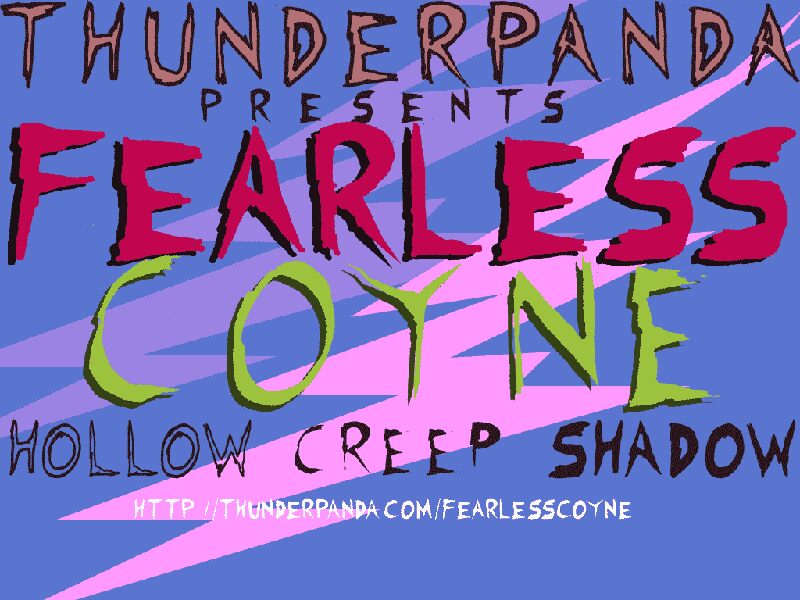
Fearless Coyne Hollow is a free outlined cartoon display font with tall, irregular capitals and a wiry, hand-drawn edge. The narrow strokes wobble between sharp points and loose curves, with uneven inner lines that make each letter feel roughly sketched. Its shifting heights and exaggerated angles give the alphabet a nervous, comic-horror expression.
Merchandise gives this lettering an immediate home on band shirts, skate graphics, and novelty stickers, where its ragged contours can become part of the artwork. It also fits Halloween event posters. For snack packaging or youth-oriented entertainment branding, the crooked outlines can shape an identity that feels mischievous and deliberately rough.
Fearless Coyne Hollow by Eric Wiryanata of Deathrockstar is a free graffiti display font.
Three versions are available.
Fearless Coyne Hollow